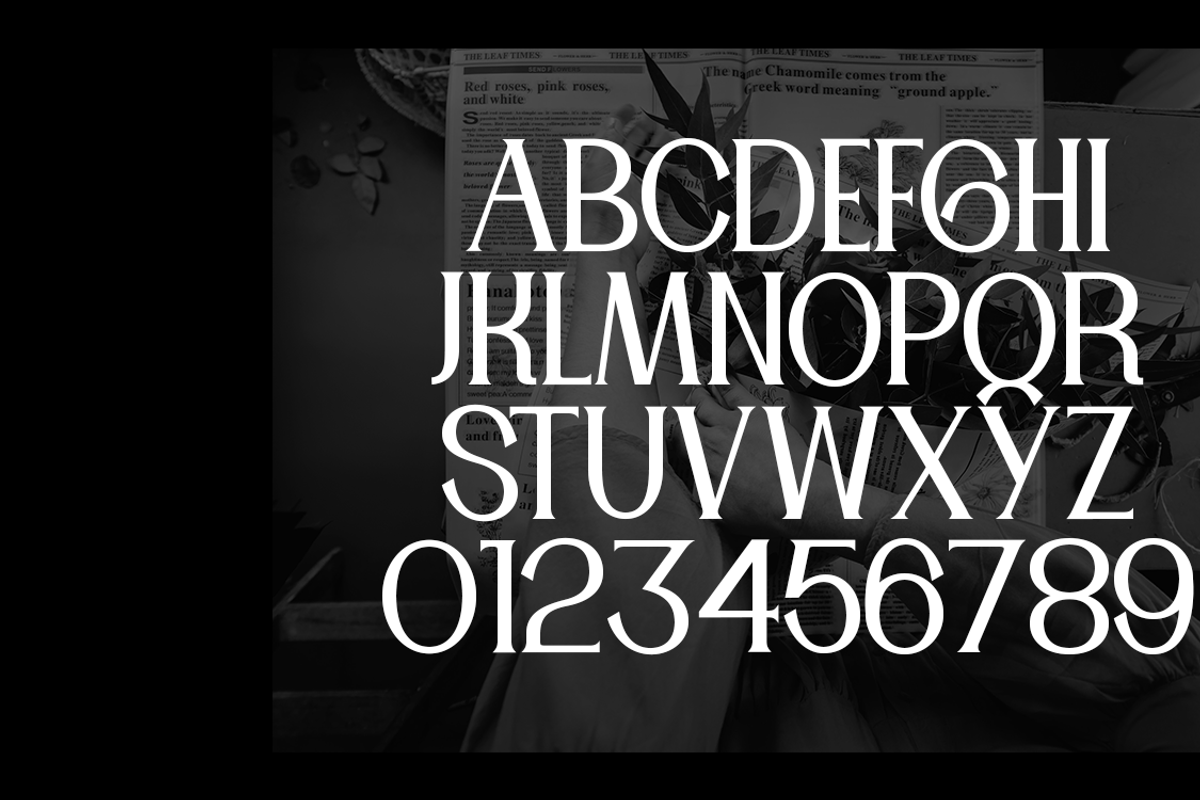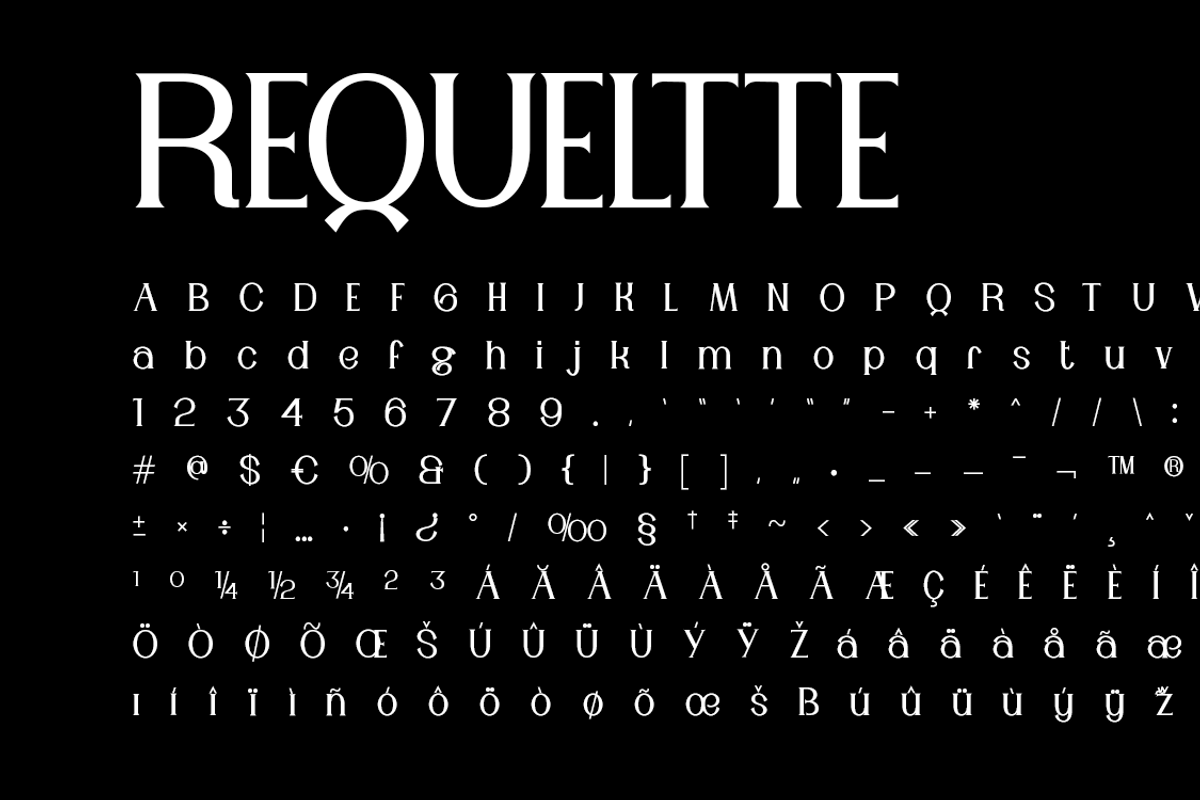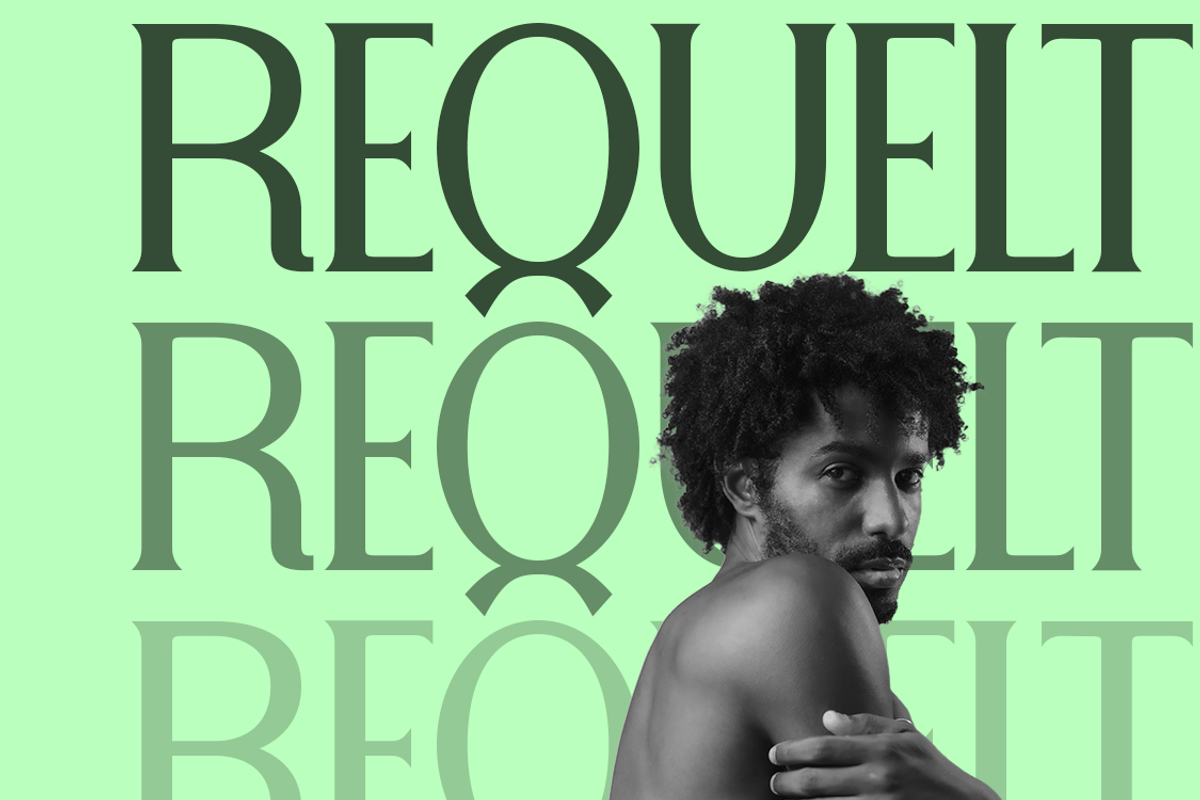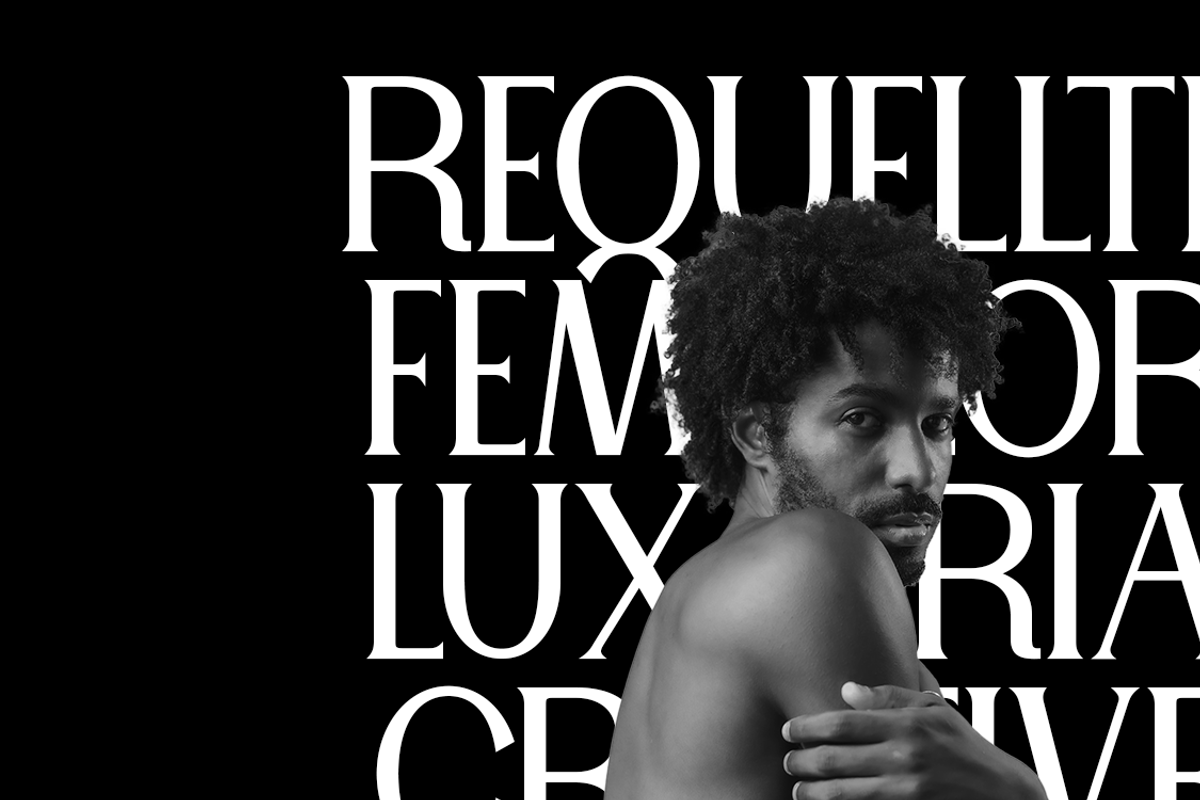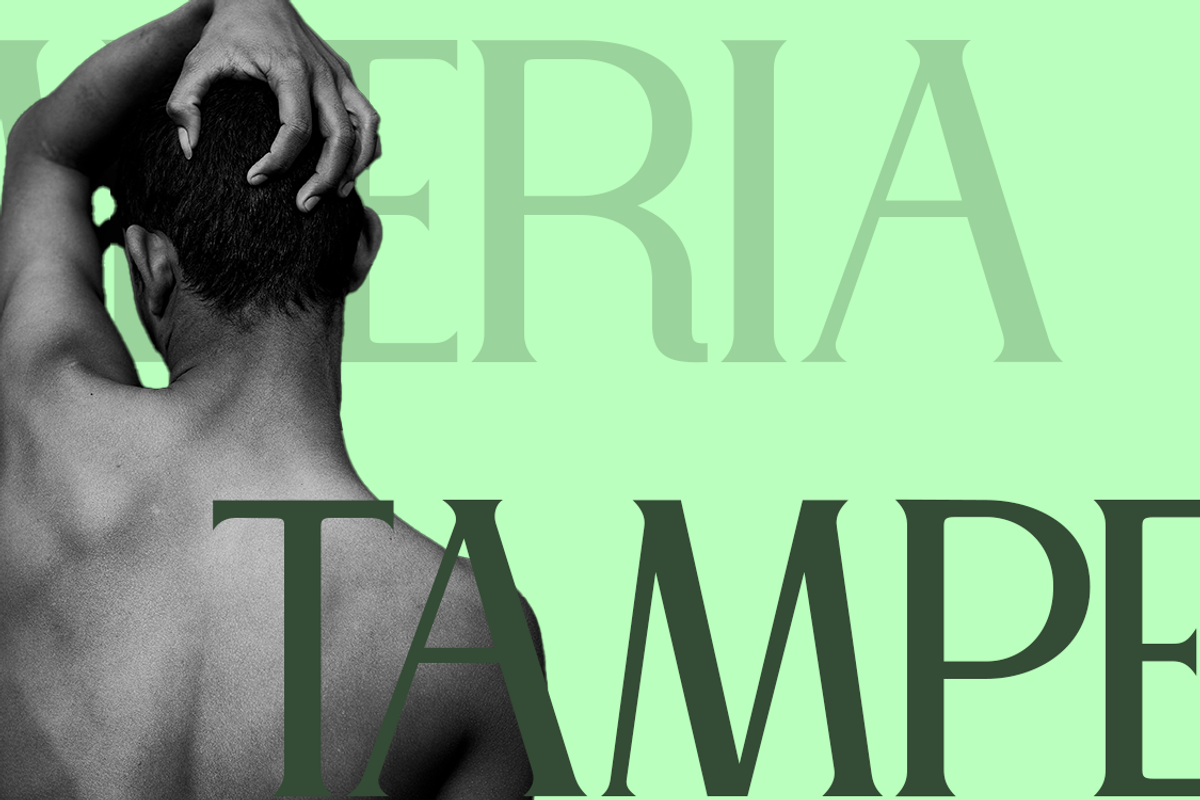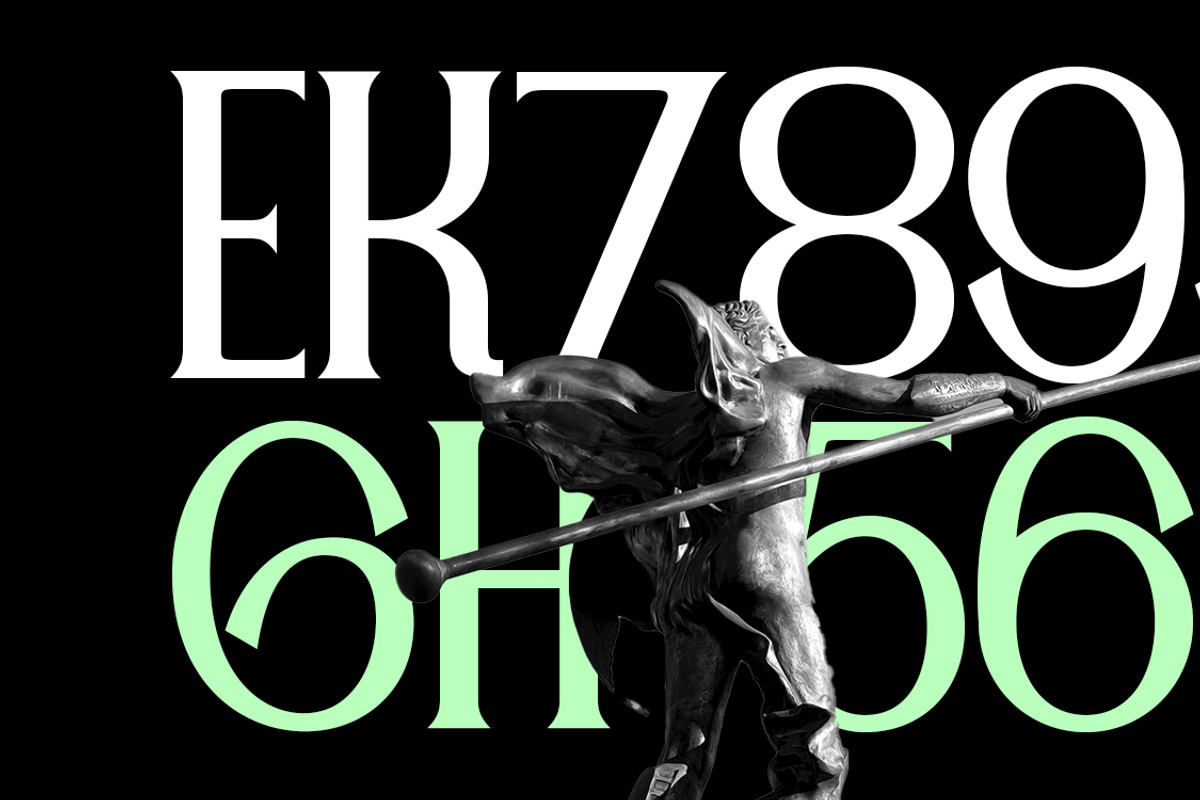
Requeltte Display
Requeltte is a sophisticated serif typeface designed for modern branding and high-impact visuals. With its carefully crafted curves and sharp contrasts, Requette strikes the perfect balance between timeless elegance and contemporary flair. Available in two versatile weights, this font adapts seamlessly across various applications, making it ideal for magazine covers, posters, and other branding materials. Its refined structure and legibility ensure that it makes a bold statement in both large and small sizes, offering a premium look to any design project. Whether for luxury brands or editorial layouts, Requette elevates any creative concept with its stylish yet professional appeal.